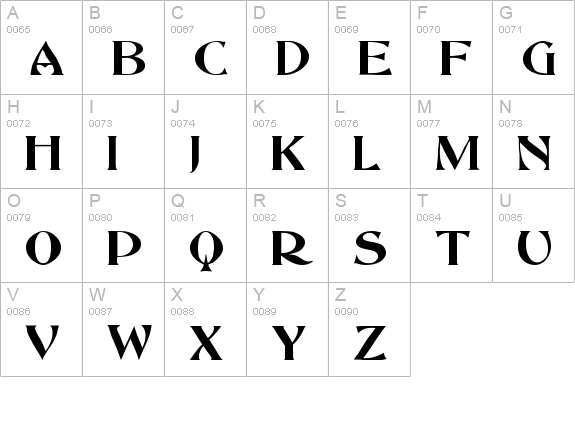
Chiapas Font Details
Chiapas font is a stylish and modern typeface that embodies elegance and sophistication. With its sleek lines and timeless design, Chiapas adds a touch of class to any project. This versatile font is perfect for a wide range of applications, from branding to editorial design. What sets Chiapas font apart is not only its aesthetic appeal but also its accessibility. It is available for free download at FontsMarket.com, making it easily accessible to designers and creatives looking to elevate their work with a touch of sophistication. Whether you're working on a logo, website, or print materials, Chiapas font is sure to make a lasting impression with its unique charm and versatility.